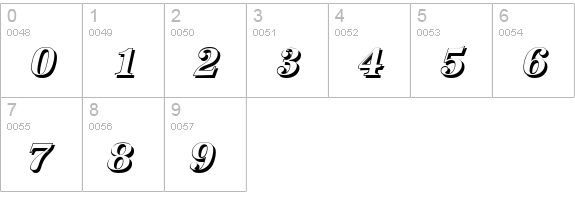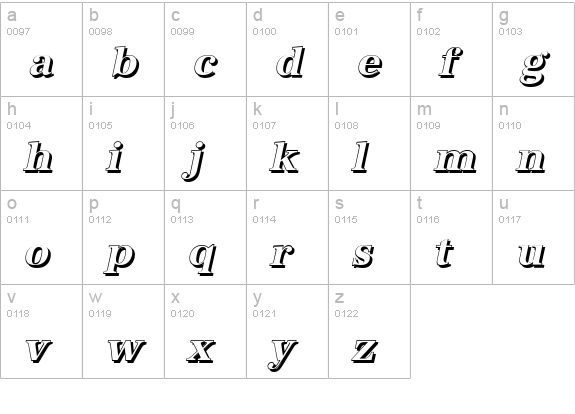
AntiquaSh-BoldItalic is a timeless and elegant font that exudes sophistication and charm. Its bold and italic design adds a touch of flair to any project, making it perfect for headlines, titles, and other prominent text. The classic and refined look of AntiquaSh-BoldItalic makes it a versatile choice for various design purposes, from branding to editorial layouts. This font is not only visually appealing but also highly readable, ensuring that your message is conveyed clearly and effectively. Whether you're working on a print project or a digital design, AntiquaSh-BoldItalic will elevate your work with its distinct style and character. Best of all, AntiquaSh-BoldItalic is available for free download at FontsMarket.com, making it accessible to designers and creators looking for a premium font without the hefty price tag. Enhance your projects with the timeless beauty of AntiquaSh-BoldItalic and make a lasting impression with every use.